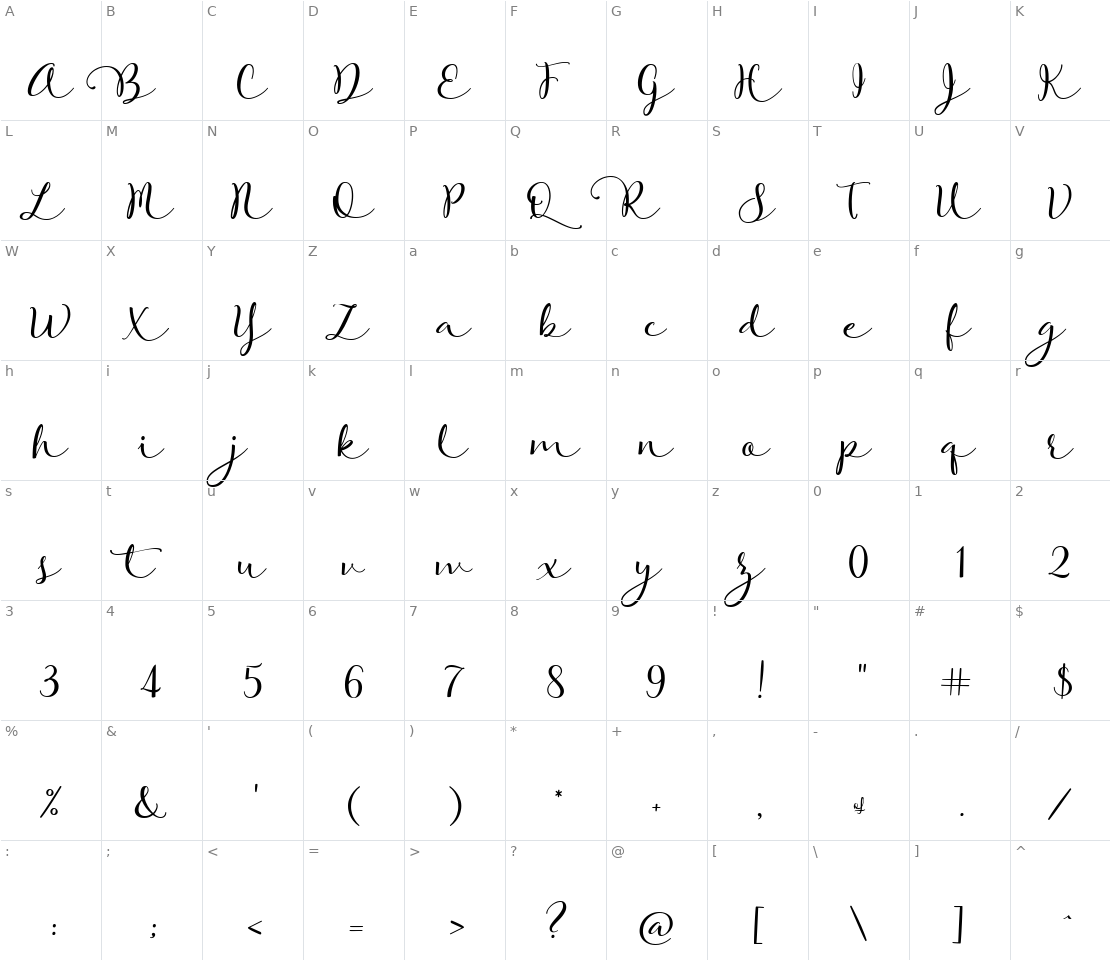
Rose Of Baltimore
Rose Of Baltimore is an elegant calligraphic face from StereoType with flowing, flourished letterforms that carry a distinctly romantic sensibility. The strokes feel deliberate and ornamental, with the kind of feminine grace you'd expect on wedding invitations, formal stationery, and event branding. It's a decorative face through and through, so it shines brightest in short runs of text where the detail has room to breathe.